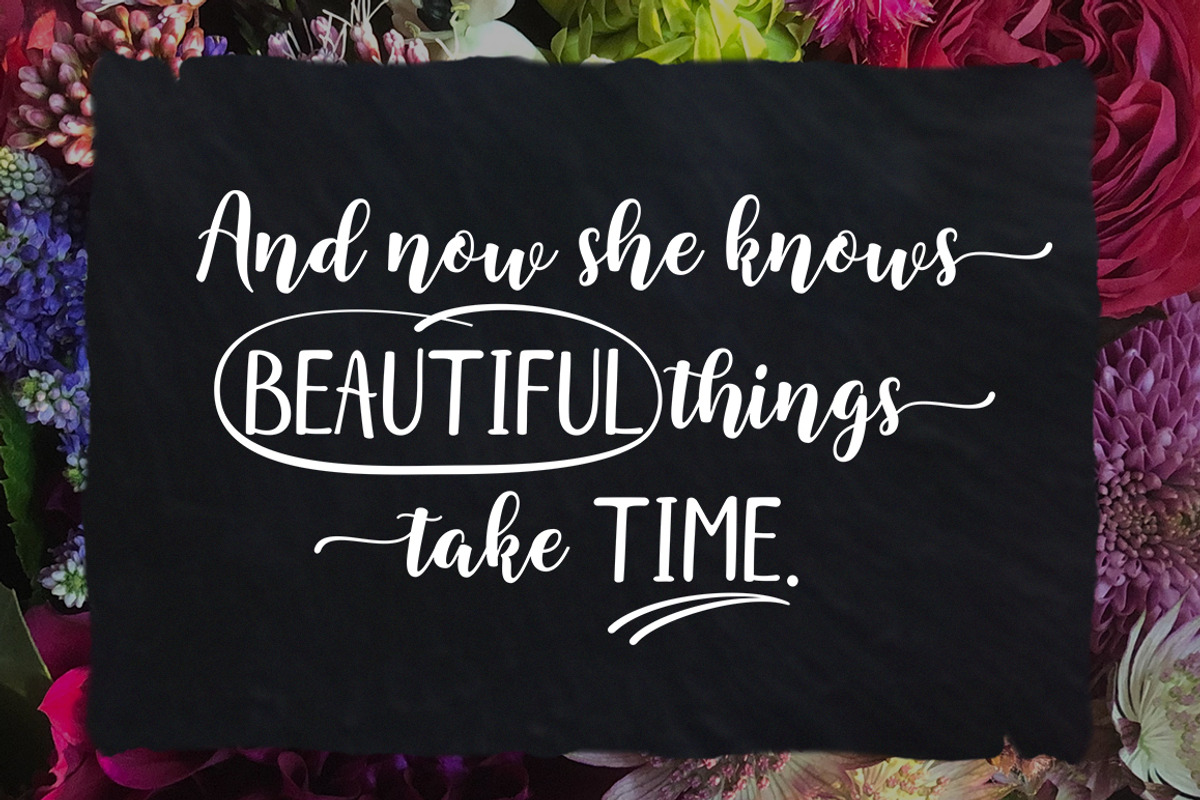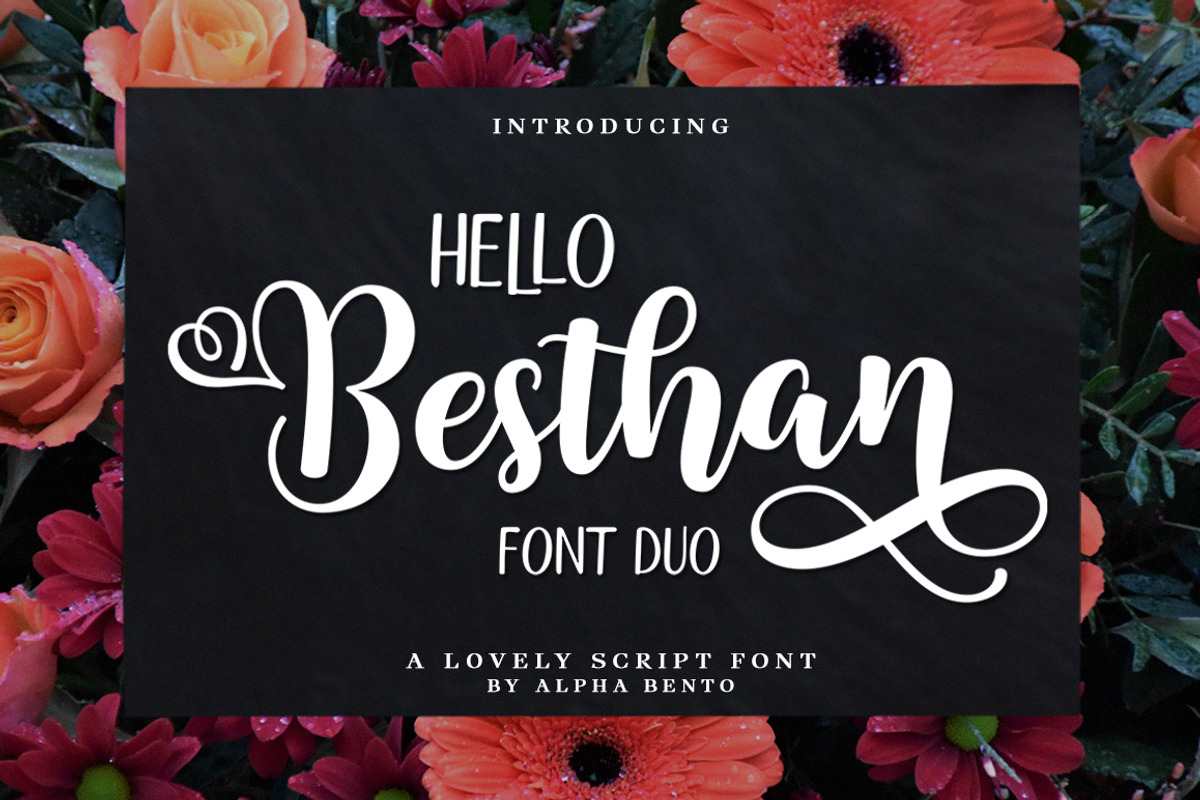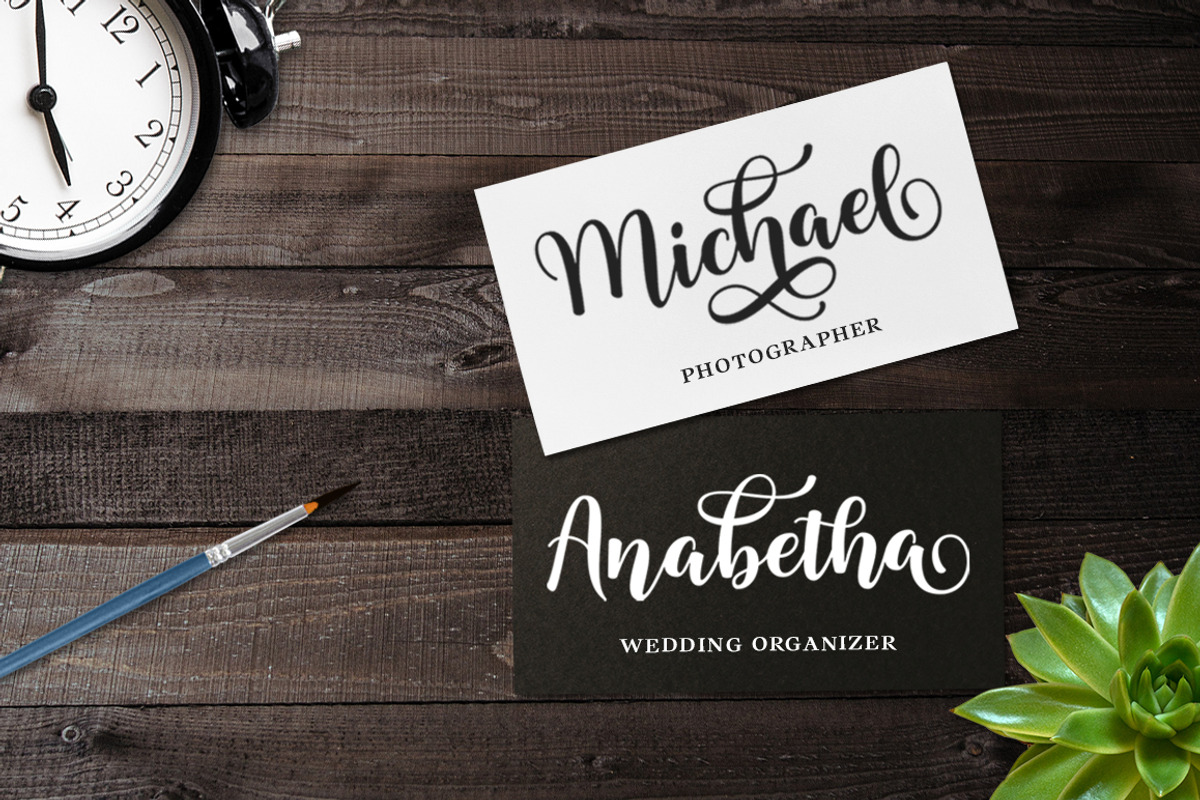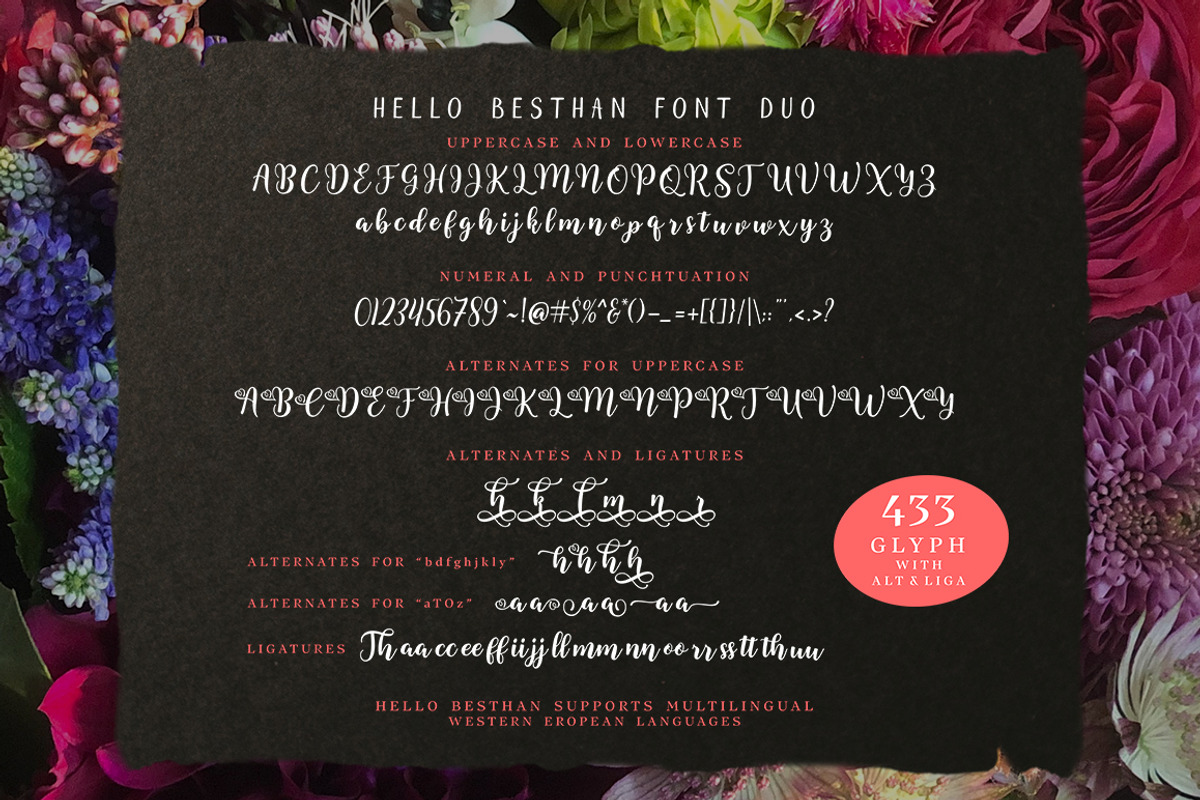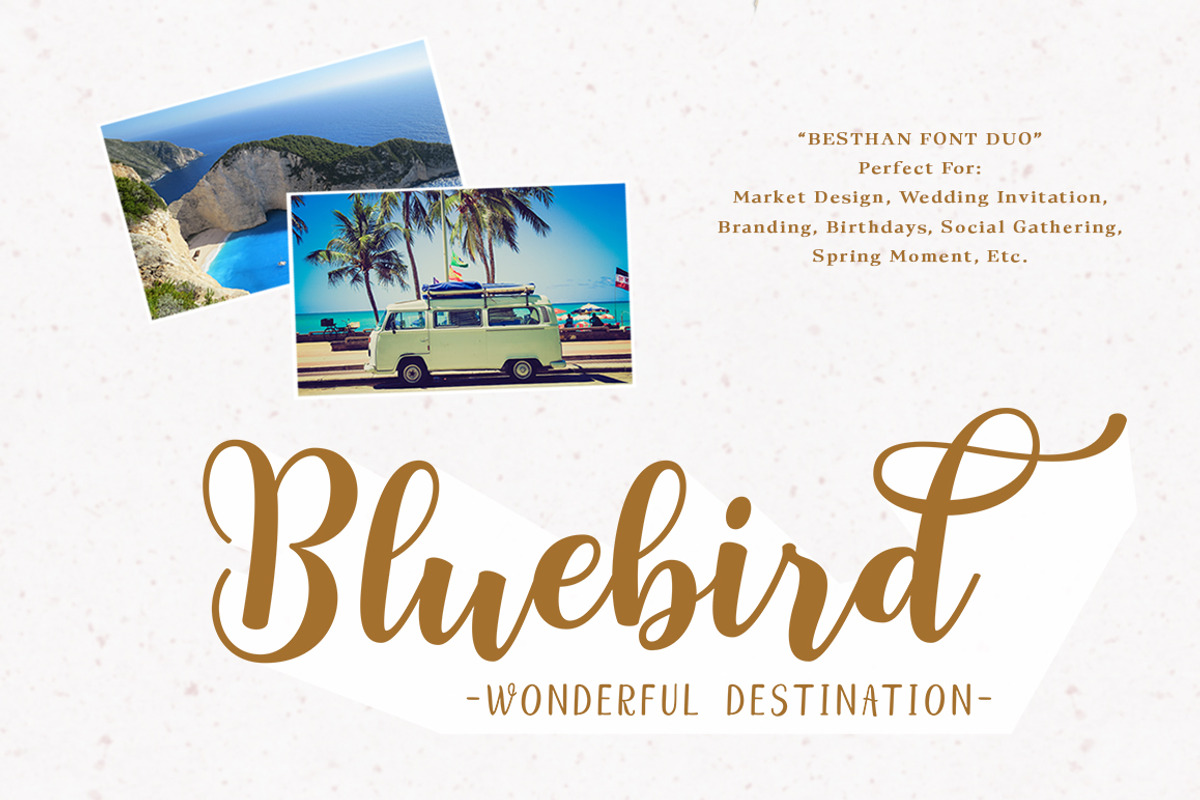
Hello Besthan Font Duo
I would like to introduce my newest font: Besthan Script font DUO is a beautiful modern calligraphy typeface, I hope you will be interested in this font, if you want to use it for your work.
This font can be used easily and simply because there are many features in it. contains a full set of lowercase and uppercase letters, a wide variety of punctuation marks, numbers, and multilingual support.
The font also contains many Alternates and contains many ligatures Style Sets. You can see an example in the image above.
Besthan Script font DUO is perfect for today's emerging market design, this font has a stylish, trendy, natural and soft font, with this font you can take advantage of any occasion is a great way to highlight its best celebration, as it will be a supporter for the cause. Such as wedding invitations, branding, parties, graduations, birthdays, social gatherings, spring, etc.